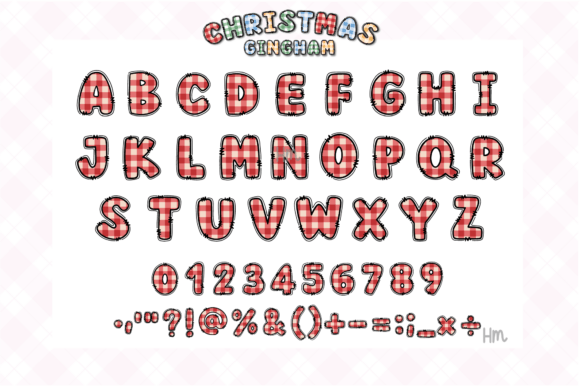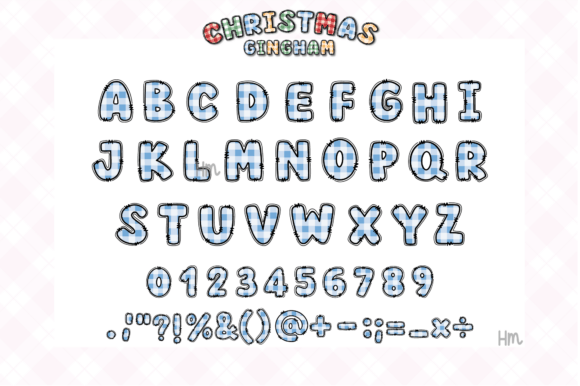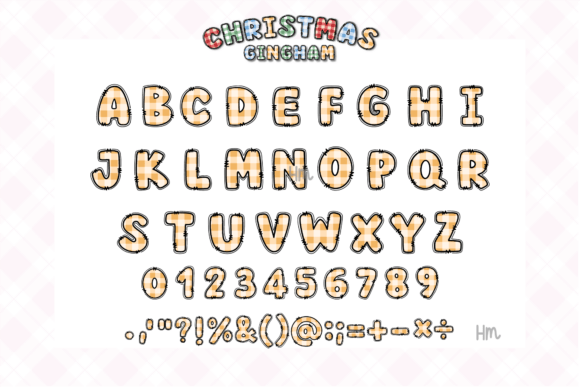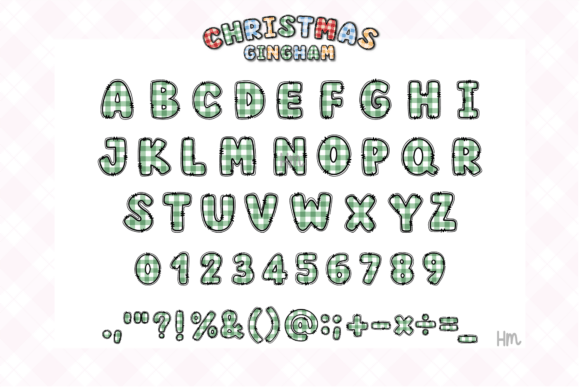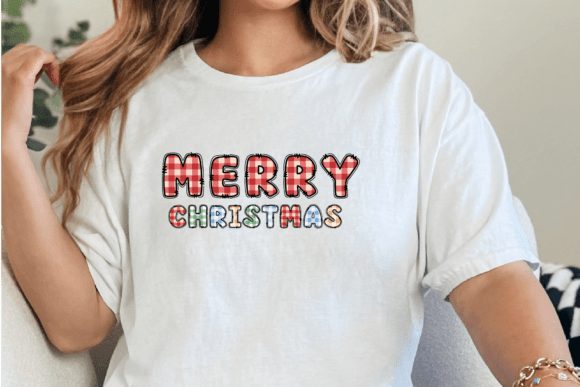
Bringing Cozy Holiday Vibes with Christmas Gingham Font
It’s that time of the year again when designers and crafters alike are on the lookout for the perfect font to add a touch of festive magic to their creations. I still remember the year I spent hours scouring the internet for a font that would bring my client’s Christmas card vision to life. The brief was simple: something playful, festive, and uniquely holiday-themed. That’s when I stumbled upon the Christmas Gingham Font, a charming plaid-style alphabet that instantly captured the cozy holiday vibes I was looking for.
A Personal Review: What I Love and What to Consider
- ✨ Playful and Festive Design: The Christmas Gingham Font is a delightful plaid-style alphabet that adds a touch of holiday cheer to any design project.
- 🎨 Colorful Options: As a color font, it offers a variety of colorful possibilities, allowing you to customize your designs to match your brand or project theme.
The Story Behind Christmas Gingham Font
The Christmas Gingham Font was inspired by the classic plaid patterns often associated with holiday decorations and cozy winter nights by the fire. The designer aimed to capture the warmth and playfulness of the season in a unique and versatile font that could be used across various design projects. The result is a charming alphabet that instantly brings a touch of festive magic to any design.